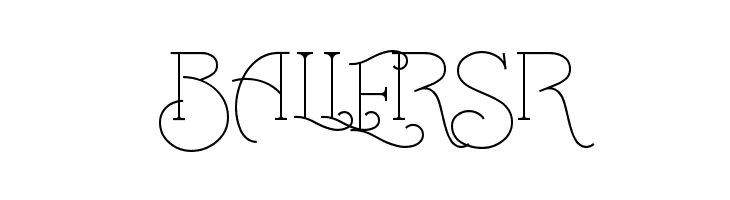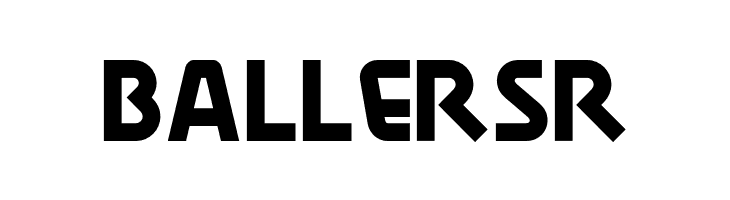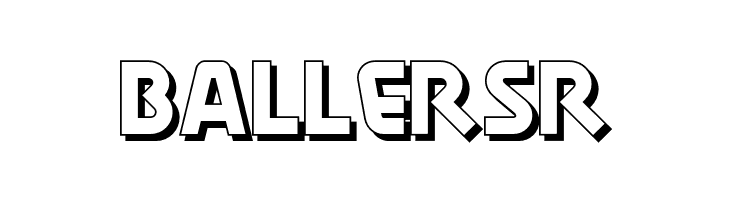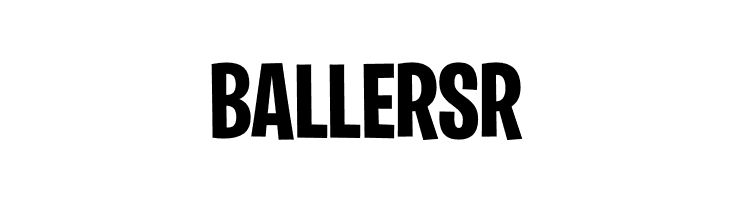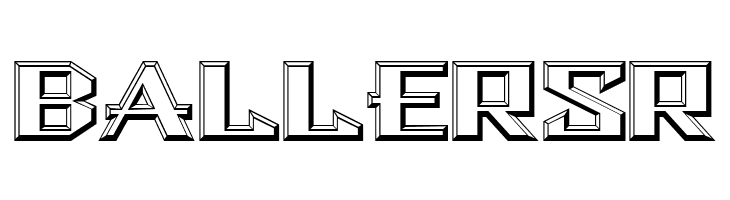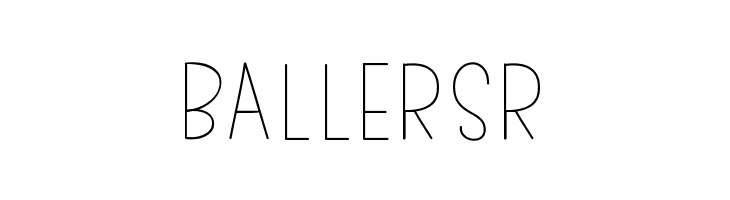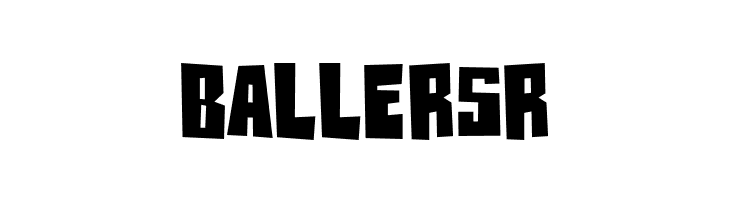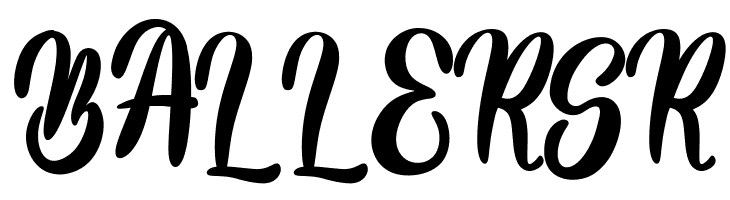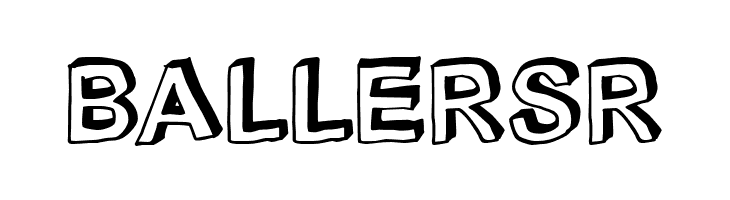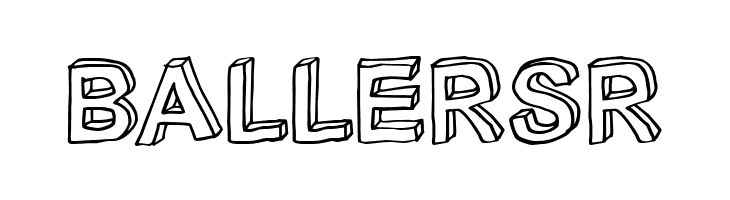
A bold, decorative font with tall, narrow characters and high contrast.
A bold, high-contrast serif font with expressive, rounded serifs.
A bold, geometric font with a 3D effect and industrial style.
A playful, thin-stroked font with a whimsical and modern style.
A bold, geometric font with a playful, stencil-like style.
A bold, playful font with a 3D effect and geometric style.
A bold, playful font with a 3D shadow effect and geometric style.
A bold, geometric font with a playful, retro vibe.
A whimsical and decorative serif font with playful curls and flourishes.
A bold, modern sans-serif font with a clean and geometric design.
A bold, modern font with thick, uniform strokes for high legibility.
A playful and energetic script font with bold, flowing strokes and a handwritten quality.
A bold, expressive script font with smooth curves and dynamic flow.
A bold, angular font with a strong, industrial aesthetic.
A bold, rugged font with jagged, chipped edges for a distressed, industrial look.
A fluid and expressive handwritten cursive font.
A bold, striped font with a modern, tech-inspired aesthetic.
A bold, distressed font with a grunge, textured style.
A bold, playful serif font with thick, rounded serifs and strong character presence.
An elegant, decorative font with intricate swirls and vintage charm.
A bold, decorative font with ornate serifs and intricate details.
An elegant, whimsical font with thin lines and decorative flourishes.
A bold, decorative font with vintage and western influences.